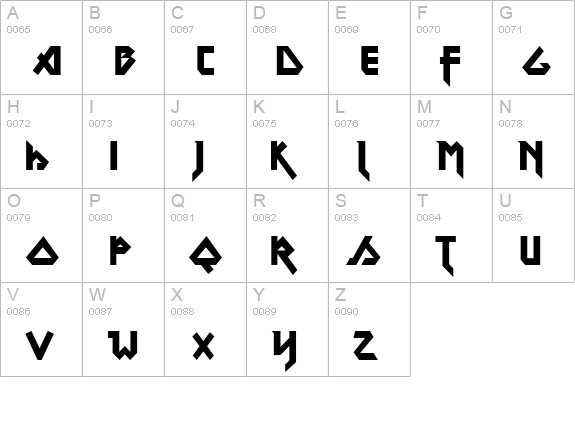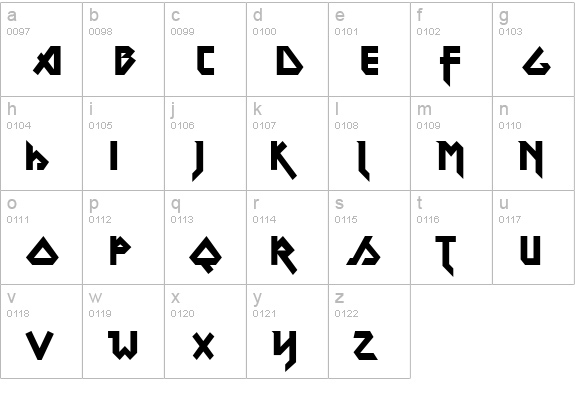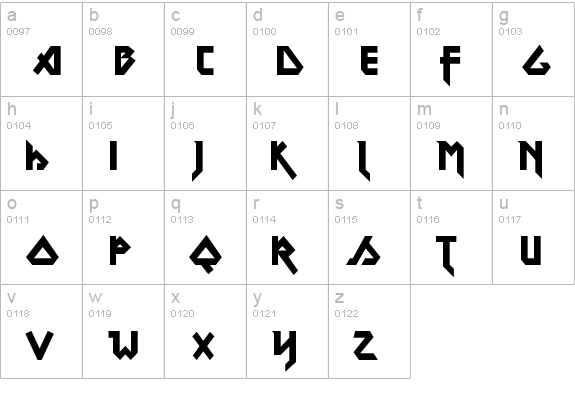
Metal Lord Font Details
Metal Lord is a bold and powerful display font that exudes strength and dominance. With its sharp edges and industrial aesthetic, this font is perfect for creating impactful headlines, logos, and posters. The intricate details of Metal Lord's letterforms give it a unique and edgy look that will make your designs stand out. Best of all, Metal Lord is available for free download at FontsMarket.com. Whether you're working on a heavy metal album cover or a gritty urban branding project, Metal Lord is sure to add a touch of raw energy to your designs. Download Metal Lord today and unleash its metal-inspired vibe in your creative projects.